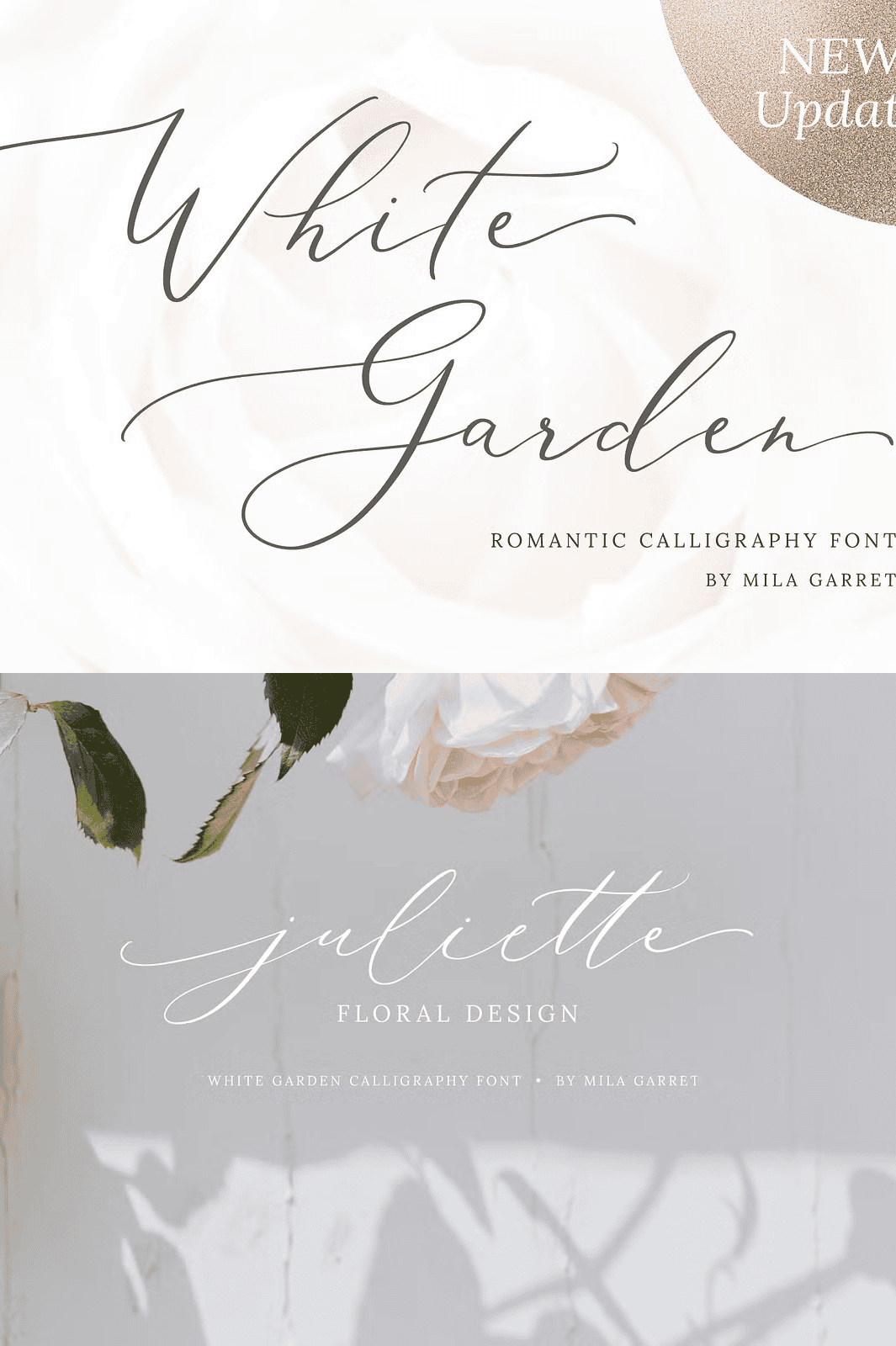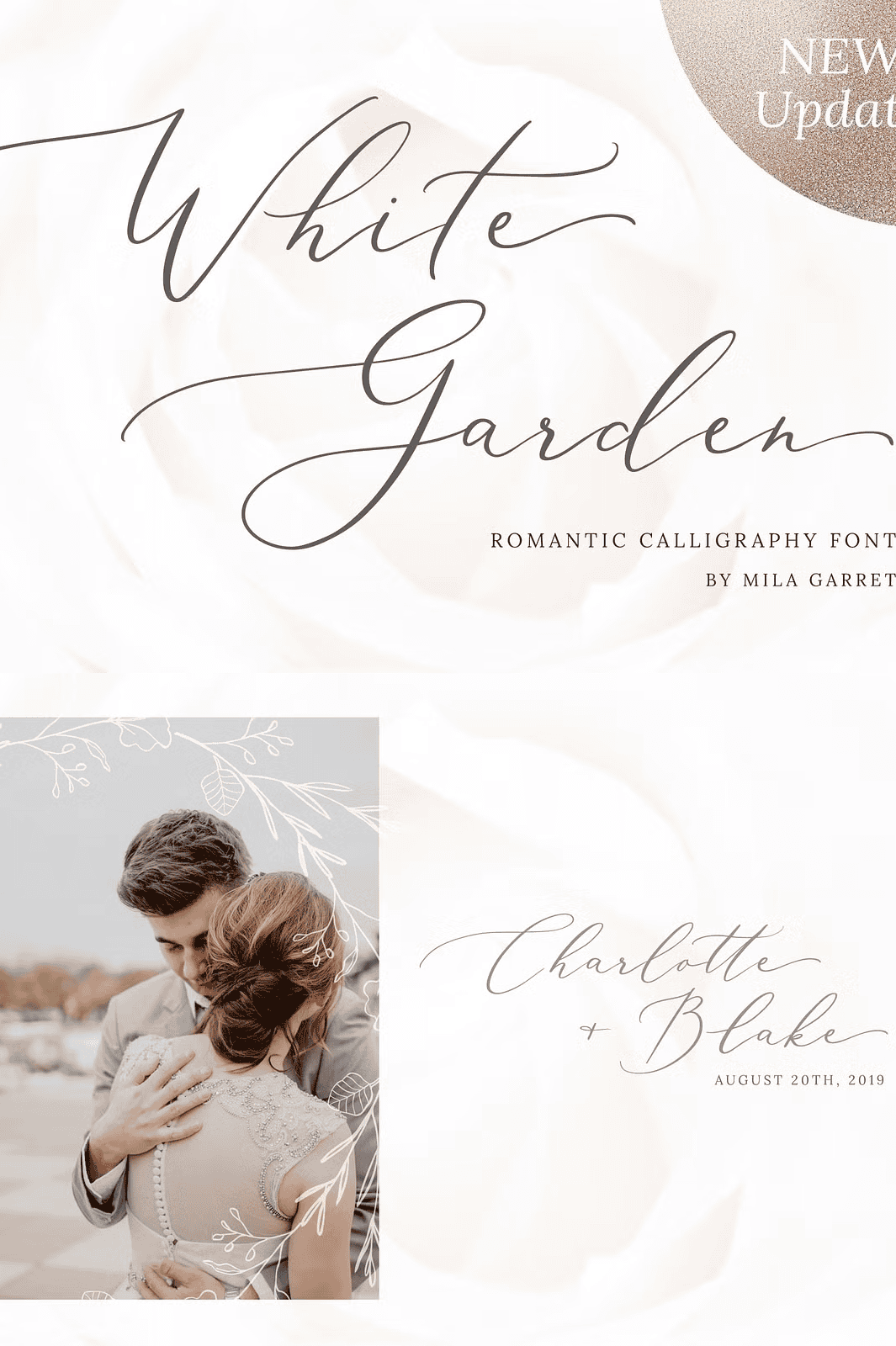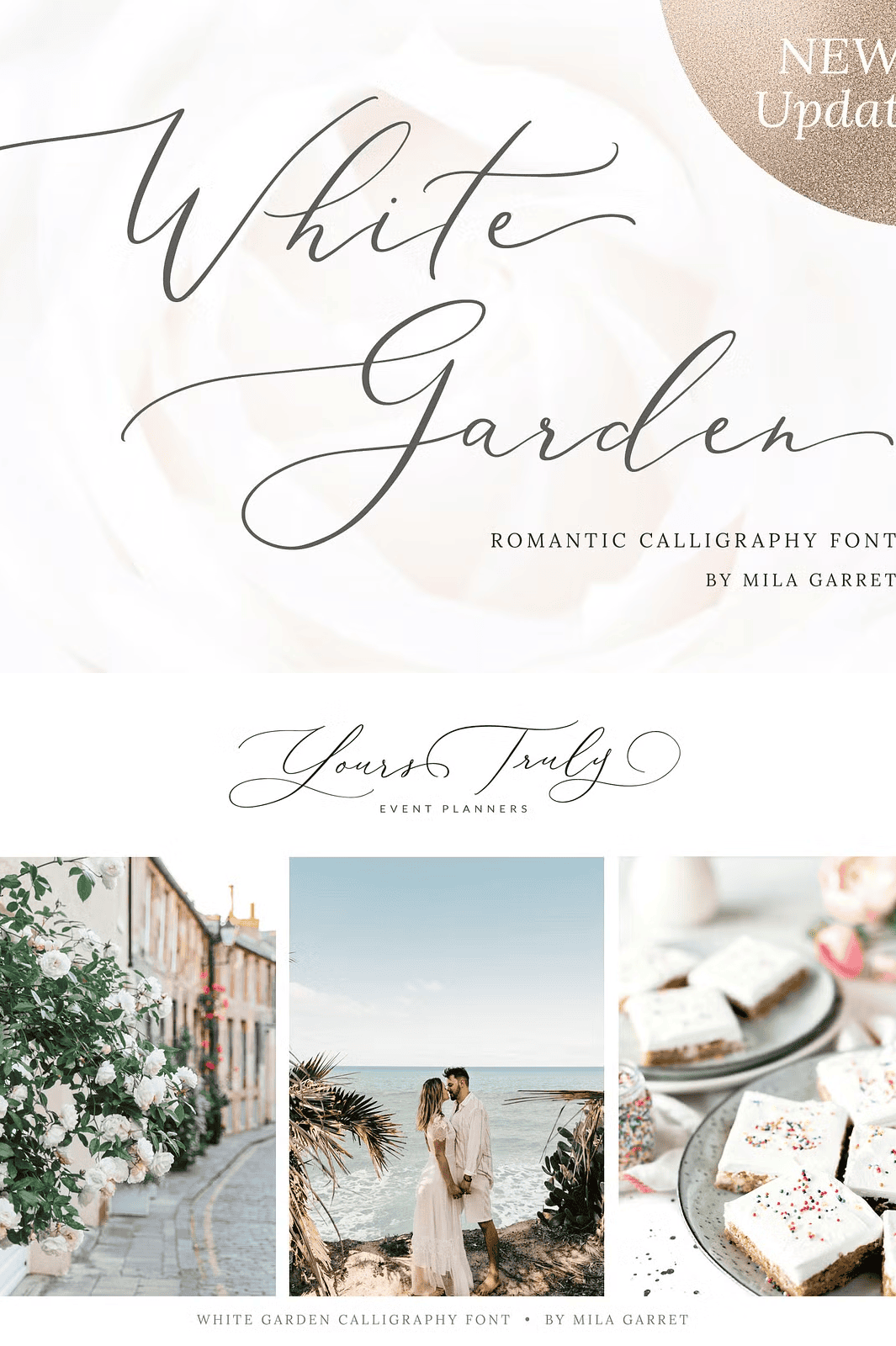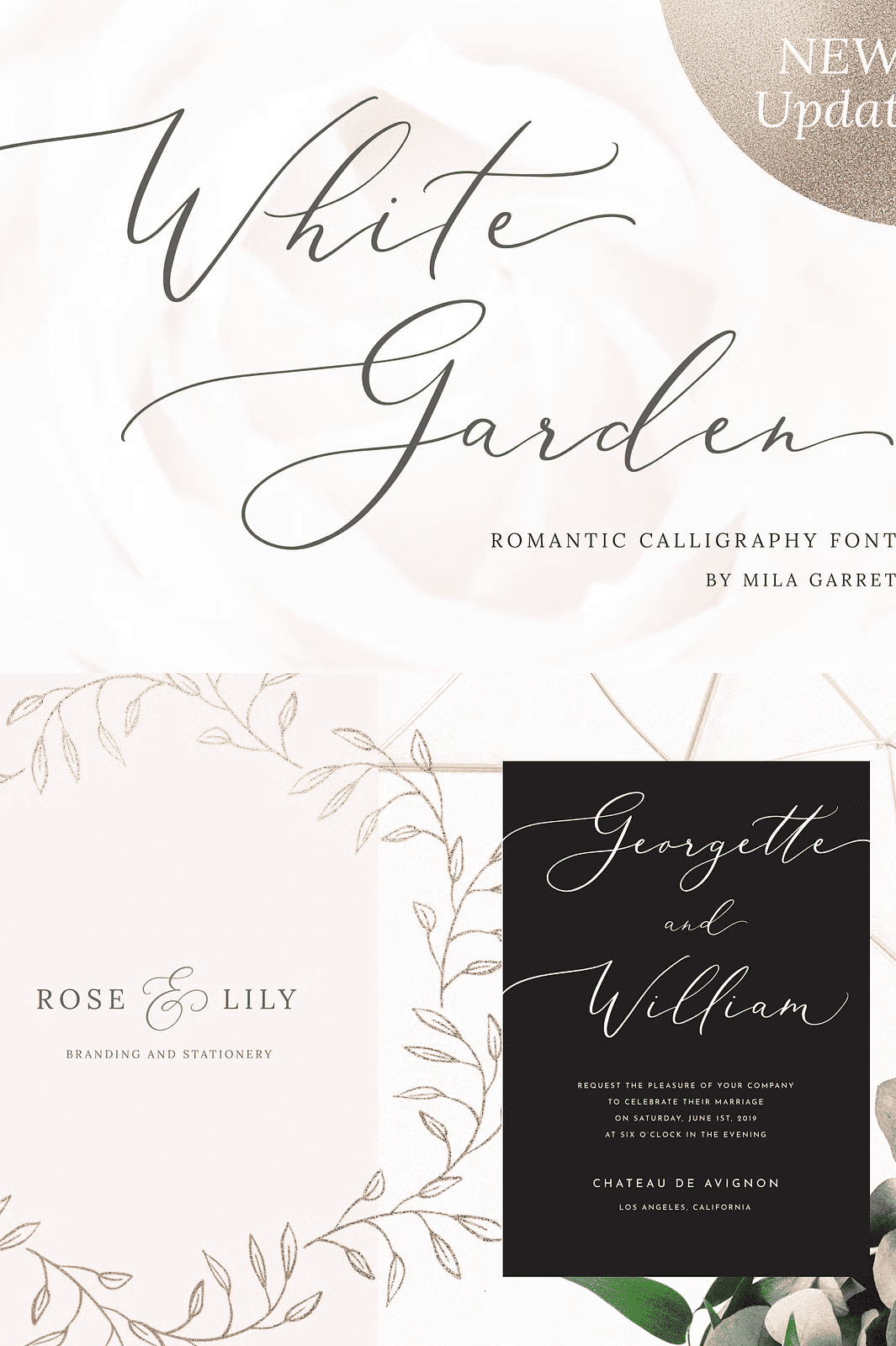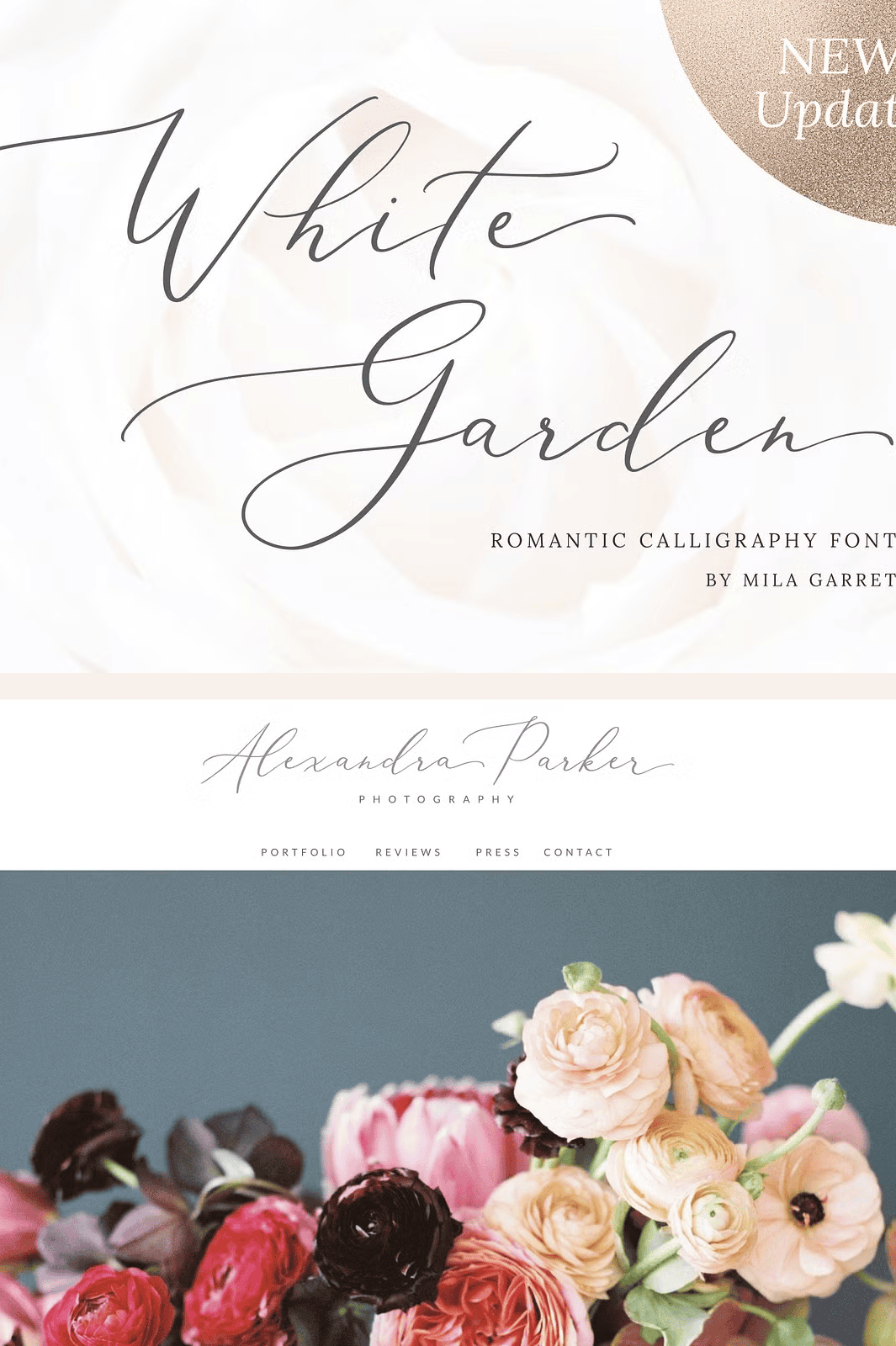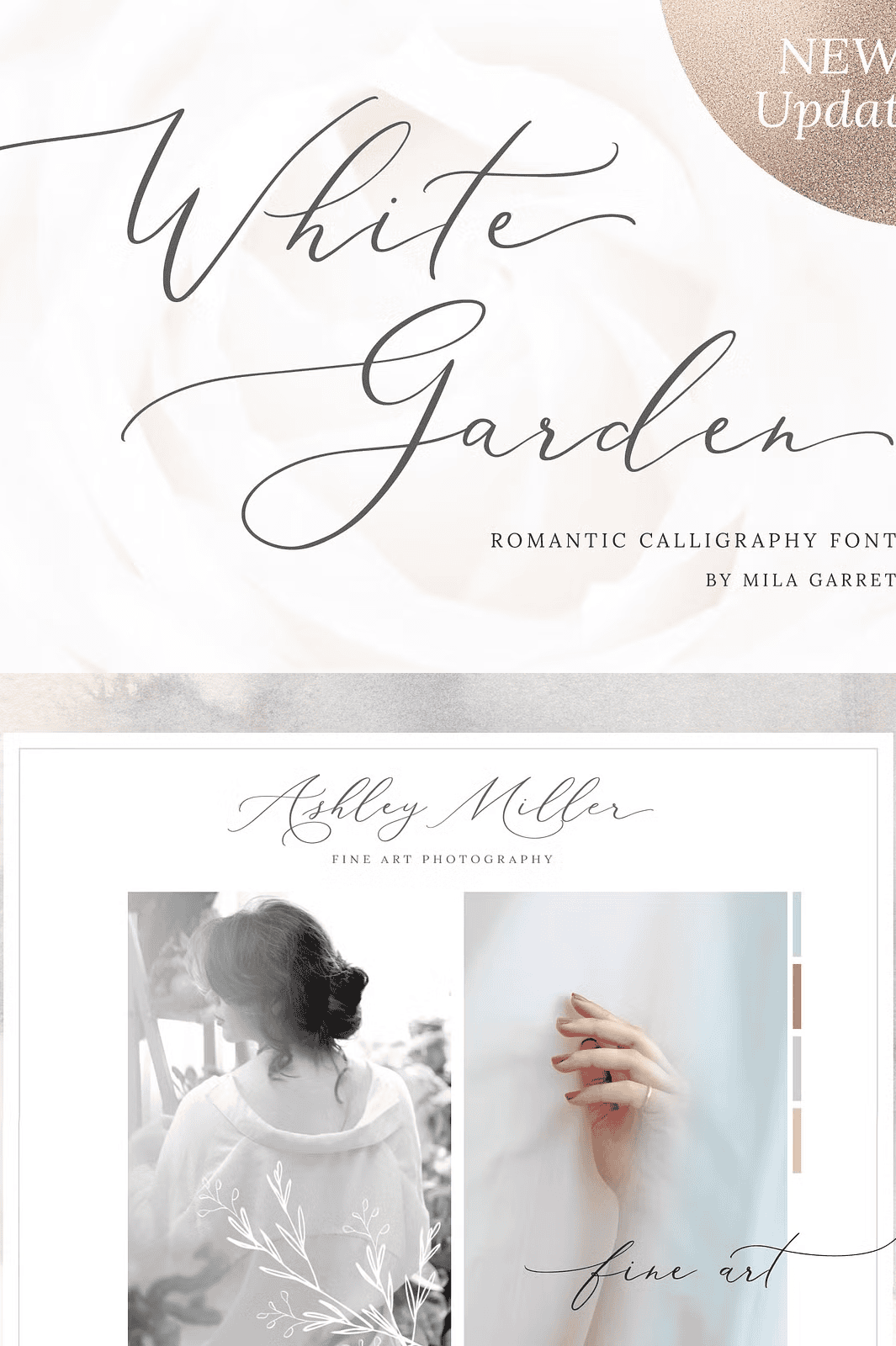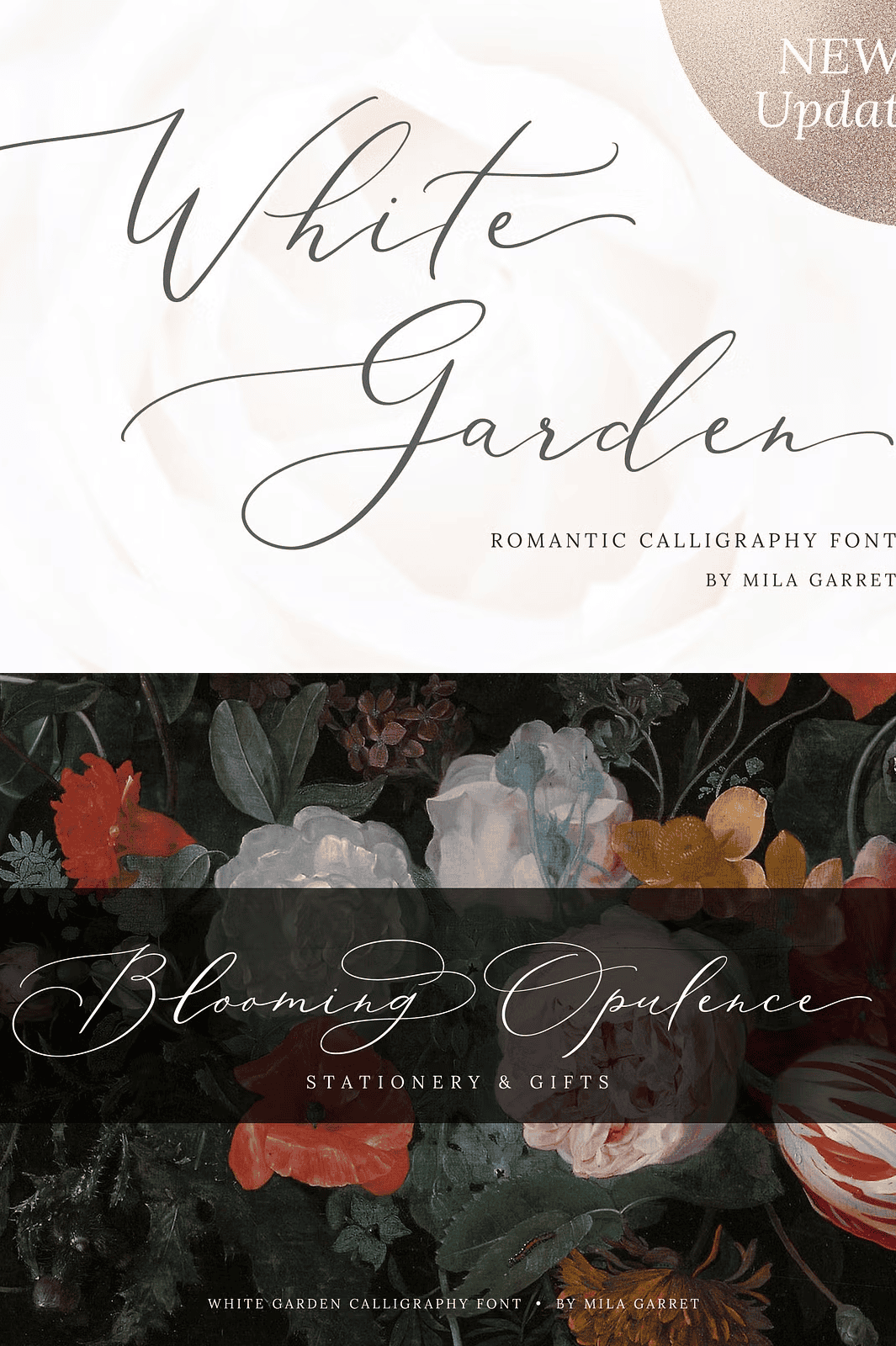
White Garden Calligraphy Logo Font
Unleash Timeless Sophistication with Every Stroke
Discover White Garden, a breathtaking calligraphy font designed to infuse your projects with refined elegance and artistic grace. Perfect for luxury branding, wedding invitations, premium packaging, high-fashion logos, and exclusive website designs, White Garden transforms every letter into a work of art. Its flowing lines, intricate swashes, and delicate contrast bring a handcrafted touch that exudes class and exclusivity.
This is not just a typeface it’s a statement of craftsmanship. Whether you’re crafting a bridal suite, designing a luxury brand identity, or adding finesse to a product label, White Garden delivers the kind of sophistication that captures attention and commands admiration.
Rich Feature Set for Premium Customization
White Garden is packed with professional-grade typographic tools to give your designs a truly bespoke look:
Multiple Swash Variants: Begin with elegant swashed capitals and lowercase letters, and end with graceful, flowing finishes. Customize your name or logo to feel uniquely handwritten.
Extensive Alternates: Access two sets of alternate capitals, stylistic alternates, and contextual ligatures that adapt dynamically to improve visual flow.
11 Bonus Ampersand Styles: Choose from an array of unique ampersands perfect for logo branding and decorative layouts.
Extra Numerals for Names: Include special numerals like “III” or “IV” for formal names (e.g., John Smith III) ideal for weddings and titles.
Standard and Wide Versions: Select the perfect width for your layout from sleek, compact designs to bold, expansive compositions.
Designed for Global Creatives, Built for Real-World Use